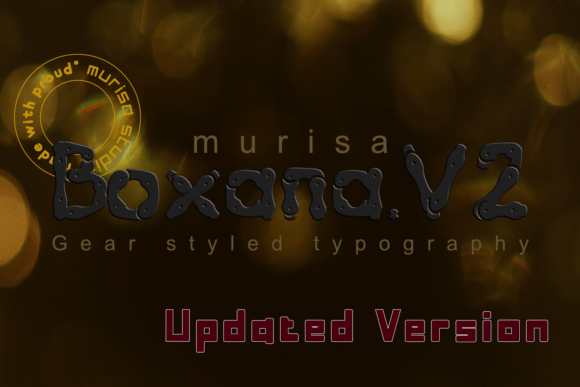
Unleash Your Creativity with Boxana Font
Remember the rush of excitement when you stumble upon that perfect font that takes your design to the next level? It’s like hitting the jackpot – all your hard work and creative efforts come together in a beautiful, harmonious way. For designers, finding that elusive font can be a game-changer, and I’m excited to introduce you to one that’s sure to make your projects stand out: the Boxana Font.
This cool and bold display font is perfect for making a statement on posters, flyers, or prints. Its unique style and character will give your designs a touch of sophistication and elegance. Whether you’re a seasoned pro or a newcomer to the world of design, the Boxana Font is a valuable addition to your toolkit. So why settle for ordinary when you can unleash your creativity with this stunning font?
Boxana Font Key Features
- Font Family: Boxana is a unique, modern sans-serif font with a distinctive rounded edge design.
- Unique Characteristics: Boxana’s rounded edges and subtle curves create a friendly, approachable feel, making it perfect for branding, signage, and digital interfaces.
Designer Review: Boxana Font
Overall, I found the Boxana Font to be a fun and quirky addition to any design project. ✨ Its unique combination of rounded shapes and bold lines gives it a playful feel that’s perfect for creative or artistic projects.
One of the standout features of Boxana is its versatility. ✨ It comes in a range of weights and styles, from light and delicate to bold and eye-catching. This makes it easy to use in a variety of contexts, from headlines and titles to body text and logos.
- Rounded shapes and bold lines give it a unique and playful feel
- Available in a range of weights and styles for versatility
- Perfect for creative or artistic projects
- Some users may find the font to be too playful or childish for certain projects
- The font may not be as effective in situations where a more serious or formal tone is needed
- Some characters may not be as well-designed as others, leading to inconsistencies in appearance
- ⚠️ May not be suitable for small text sizes due to its bold lines and rounded shapes
Overall, I would give the Boxana Font 4 out of 5 stars. It’s a fun and versatile font that’s perfect for creative projects, but may not be suitable for more serious or formal applications.
Getting the Most Out of Boxana Font
Boxana Font is a versatile font that can be used in various design contexts. To get the most out of it, try the following:
- Combine Boxana Font with other fonts to create a unique and eye-catching design.
- Use Boxana Font in bold and italic styles to add emphasis and create visual hierarchy.
Boxana Font is commonly used in:
- Logo designs and branding materials.
- Choose a bright and cheerful background color to contrast with the font.
- Use the font to create a custom menu title that stands out.
- Combine the font with simple icons or illustrations to highlight menu items.
- Pair the font with a watercolor background to create a dreamy effect.
- Use the font to create a custom wedding invitation layout.
- Combine the font with hand-drawn illustrations or watercolor elements to add a personal touch.
- Choose a bold and colorful background to match the font’s personality.
Project 2: Hand-Drawn Wedding Invitations
Design elegant and unique wedding invitations using the Boxana Font. The intricate details of the font will add a touch of romance to the invitation.
Tip: Experiment with different font sizes and styles to create a sense of hierarchy and visual flow.
Project 3: Quirky Travel Journal
Create a fun and adventurous travel journal using the Boxana Font. The playful and elegant style of the font will add a touch of excitement to the journal.